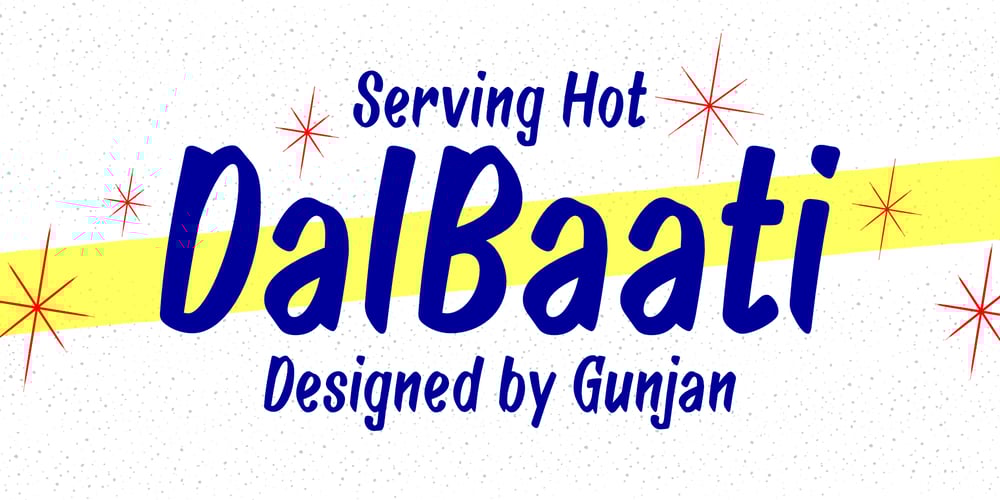
Dal Baati Font Family was designed by Gunjan Panchal and published by Gunjan. Dal Baati contains 1 styles and family package options. “Indulge in the Delectable Delight of ‘Dal Baati’ Brushy Typeface – A Feast for the Eyes!Discover the artistry of ‘Dal Baati,’ an exquisite brushy typeface that serves up a delightful blend of elegance and rustic charm. Inspired by the flavors of Rajasthan, this typeface brings a touch of authenticity to your designs, evoking the rich cultural heritage of the region.With every stroke, ‘Dal Baati’ exudes a handcrafted allure, making it perfect for logos, branding, posters, packaging, and so much more. Its unique character and versatile nature add a pinch of spice to your projects, leaving a lasting impression on your audience.Captivate your viewers’ senses with the flavorful aesthetics of ‘Dal Baati.’ Whether you’re designing for a restaurant, food-related business, or any creative endeavor, this typeface elevates your work to new culinary heights.Embrace the distinct personality and mouthwatering appeal of ‘Dal Baati’ in your designs. Enhance your visual storytelling and give your projects the delectable touch they deserve. Take your creations on a flavourful journey today with ‘Dal Baati’ brushy typeface!”